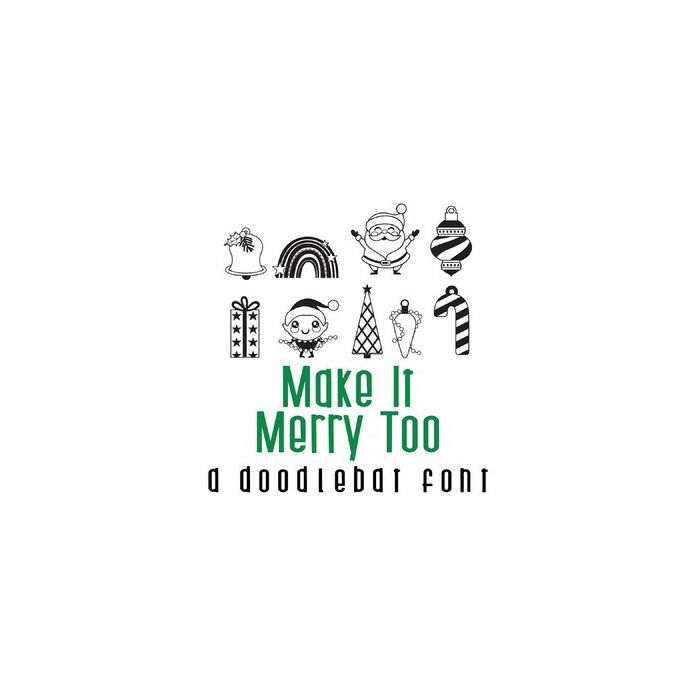
Make It Merry Too Doodlebat Font
This merry doodlebat features 26 of the merriest holiday images perfect for cards, crafts, gifts, scrapbook pages, planner stickers, and more!